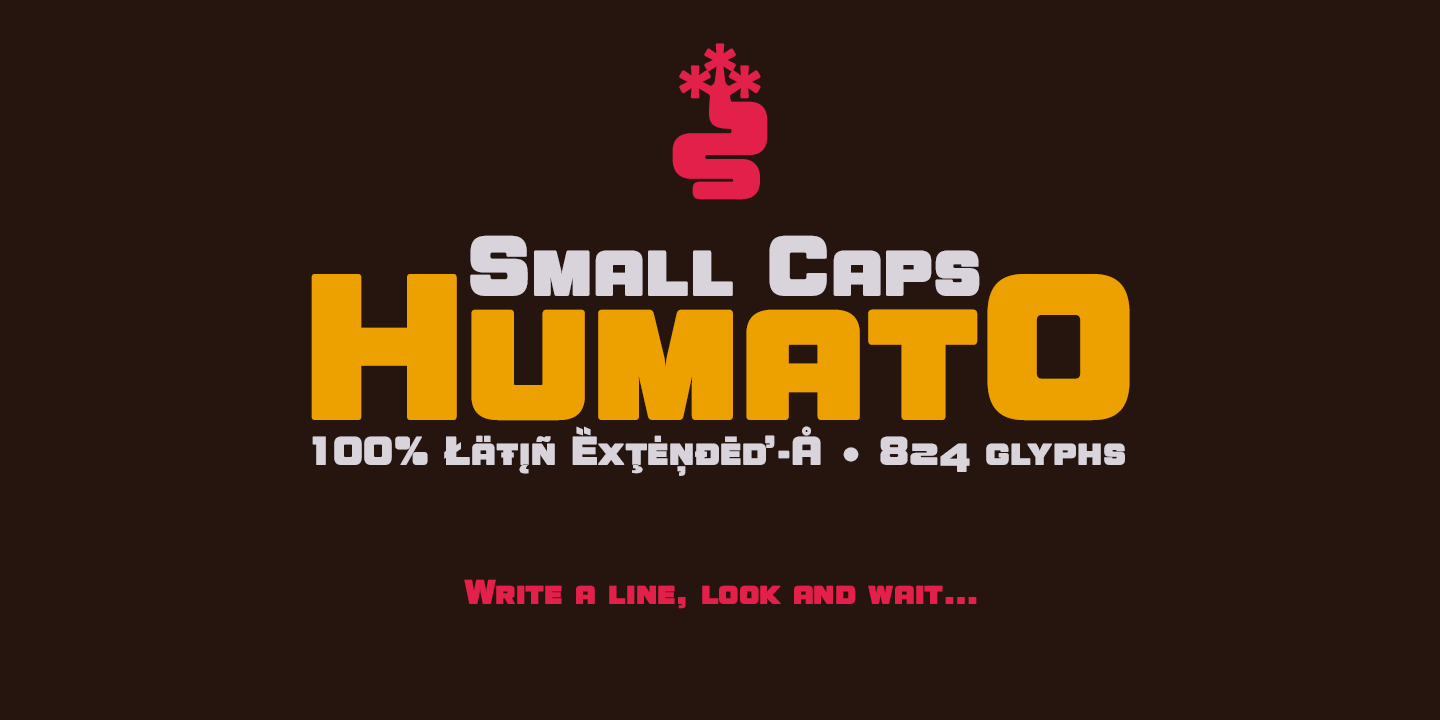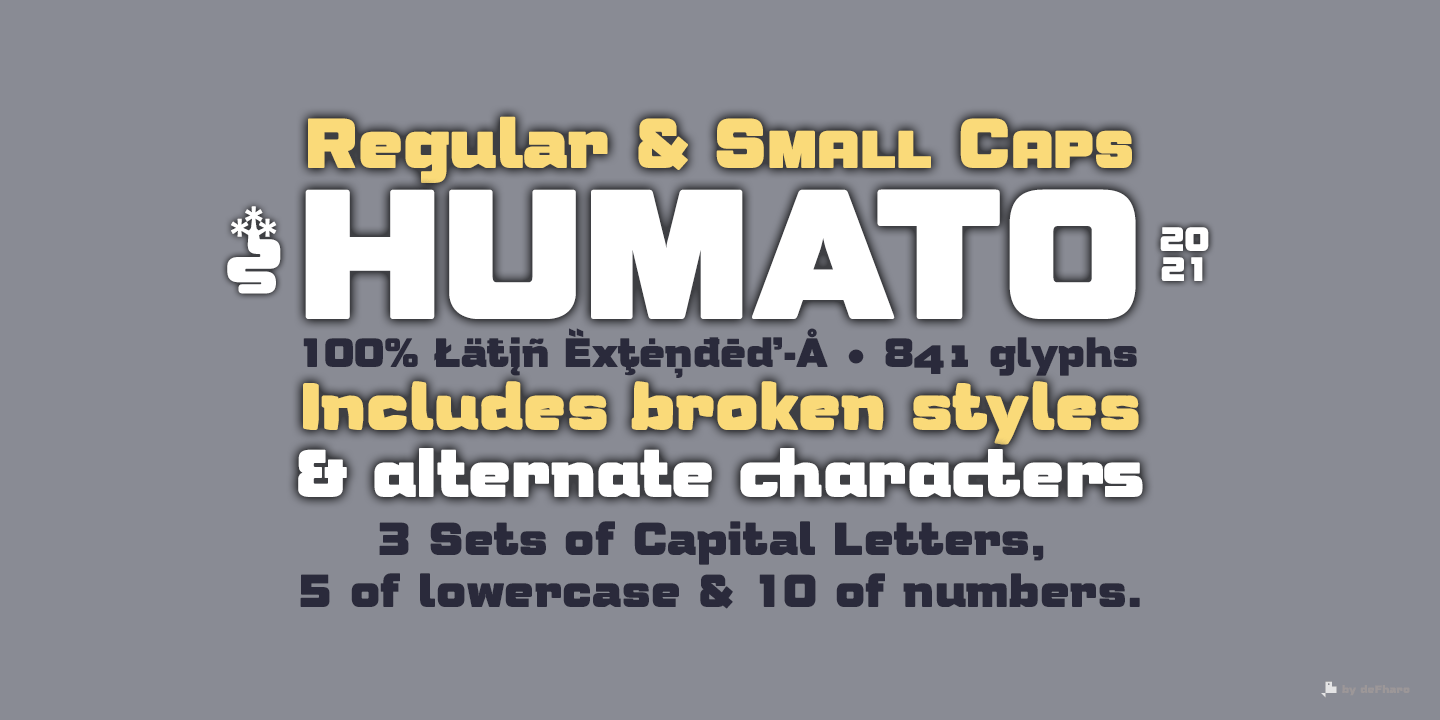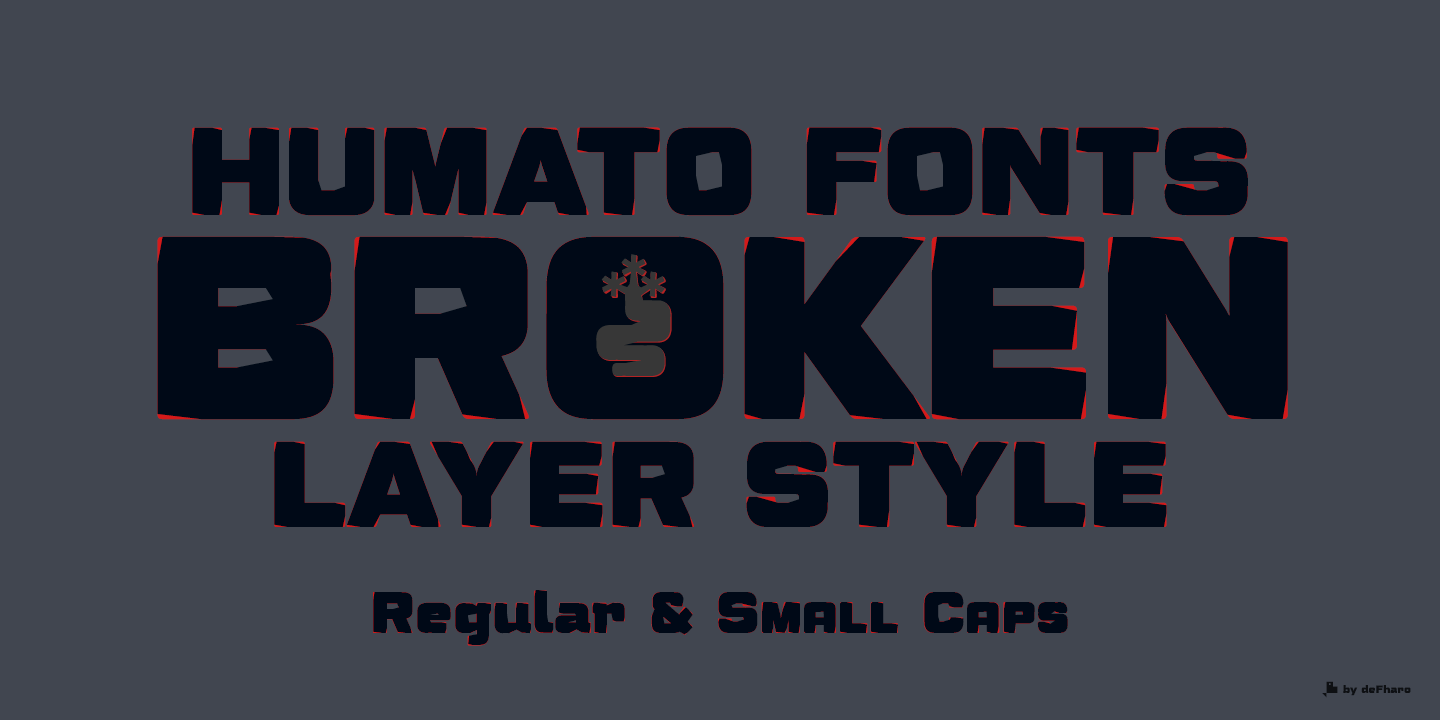
Humato Heavy Display Font is a family of display fonts, very thick, with a square proportion and rounded corners. The fonts have a detailed configuration of Metrics and Kerning.
Two main styles: Regular and Small Caps.
You will find in the commercial version 3 sets of Capital letters, 5 sets of lower case letters and 10 of numbers, in addition, they include alternative characters and advanced Open Type functions, and two extra complete versions, broken style, which can also be used as a layer font.